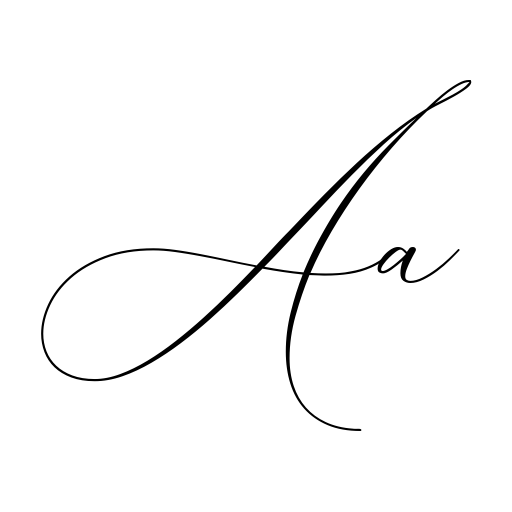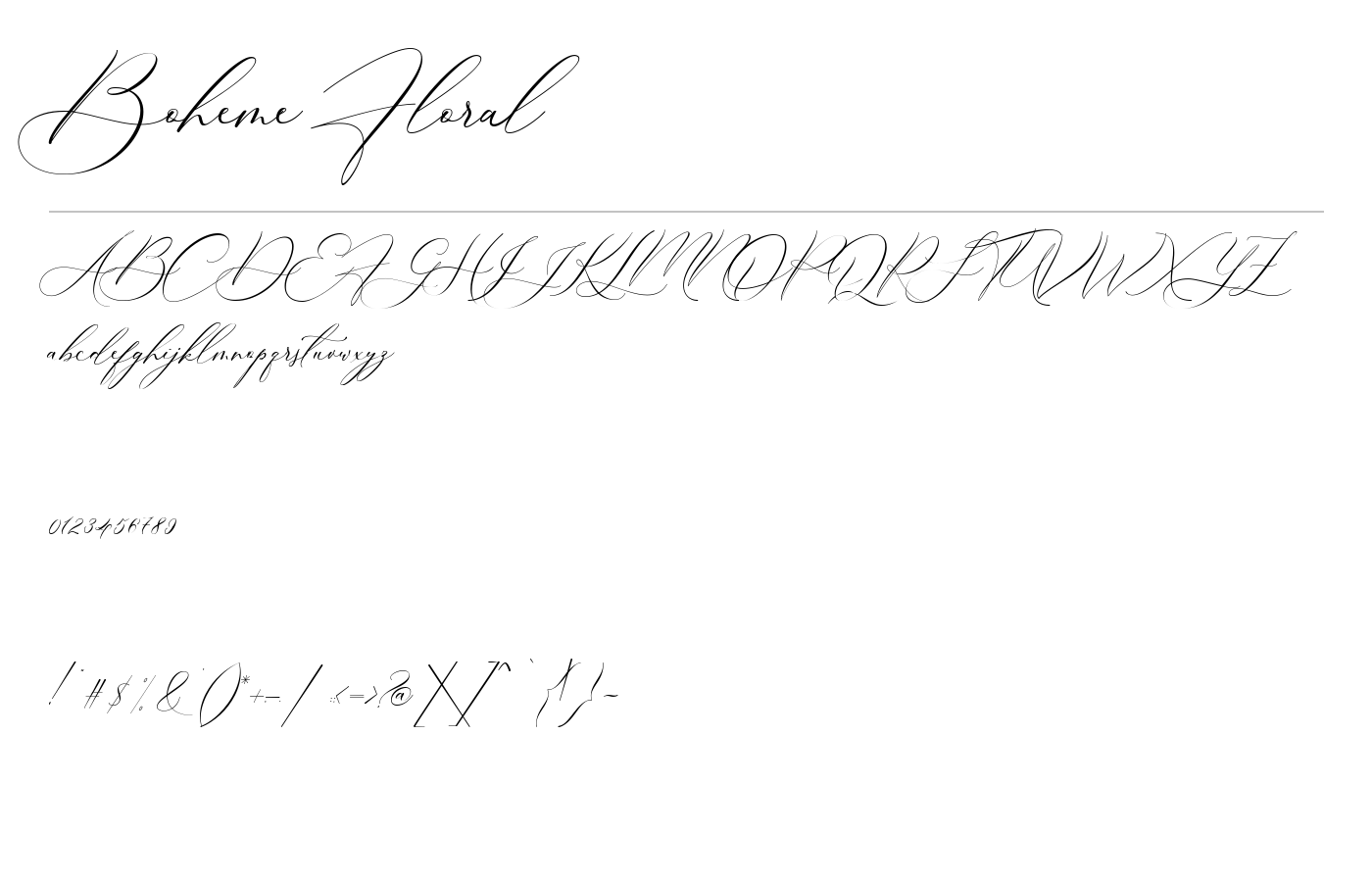
Boheme Floral is a delicate, elegant script font characterized by its very thin, flowing lines and graceful, calligraphic style. Its tall, narrow letterforms with sweeping flourishes give it a refined and sophisticated feel, making it ideal for luxury branding, wedding invitations, and high-end editorial design where a romantic, artistic touch is desired. This font shines in large sizes and decorative use, adding an airy, graceful charm to logos, packaging, and elegant headlines.
Boheme Floral Font
About Boheme Floral Font